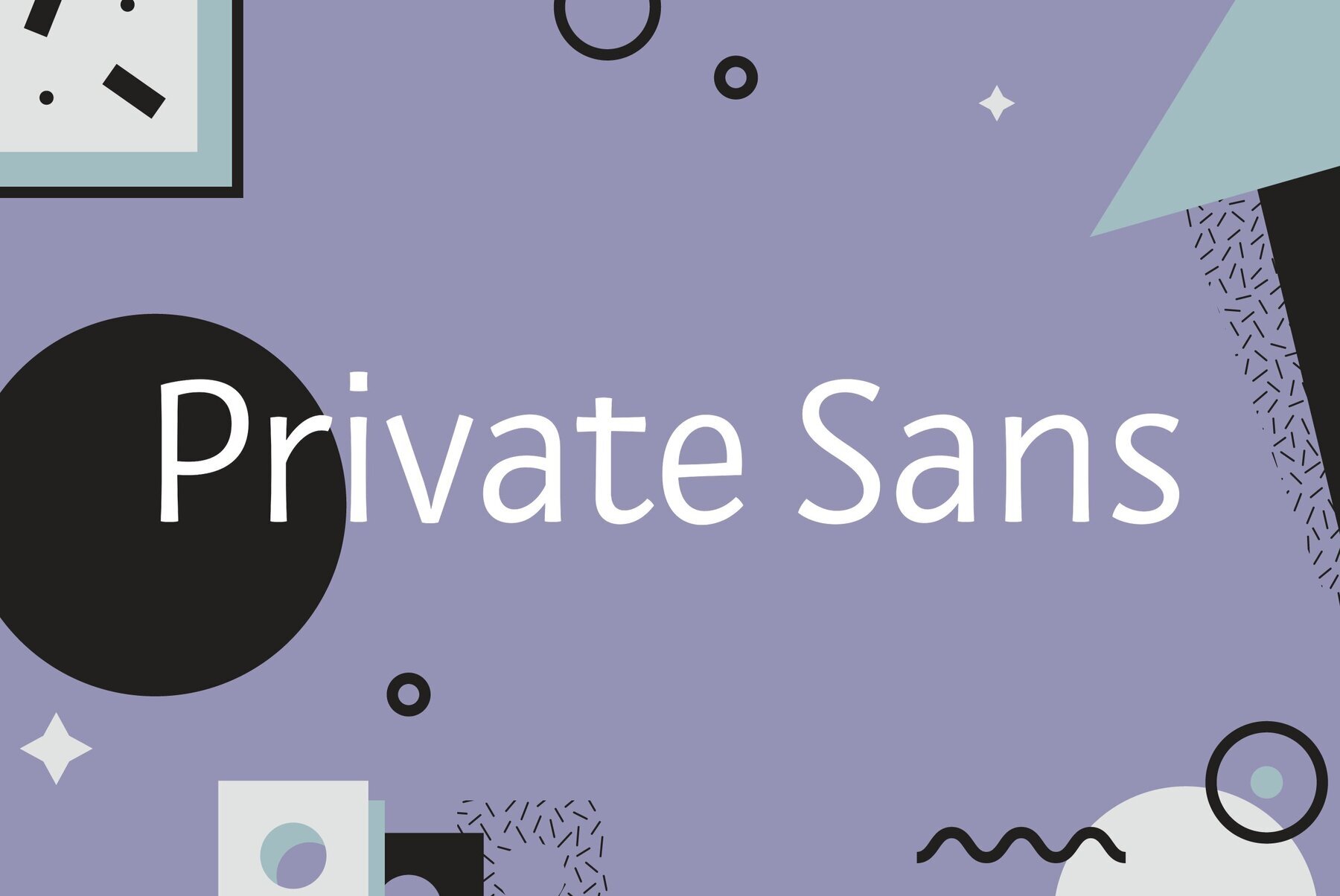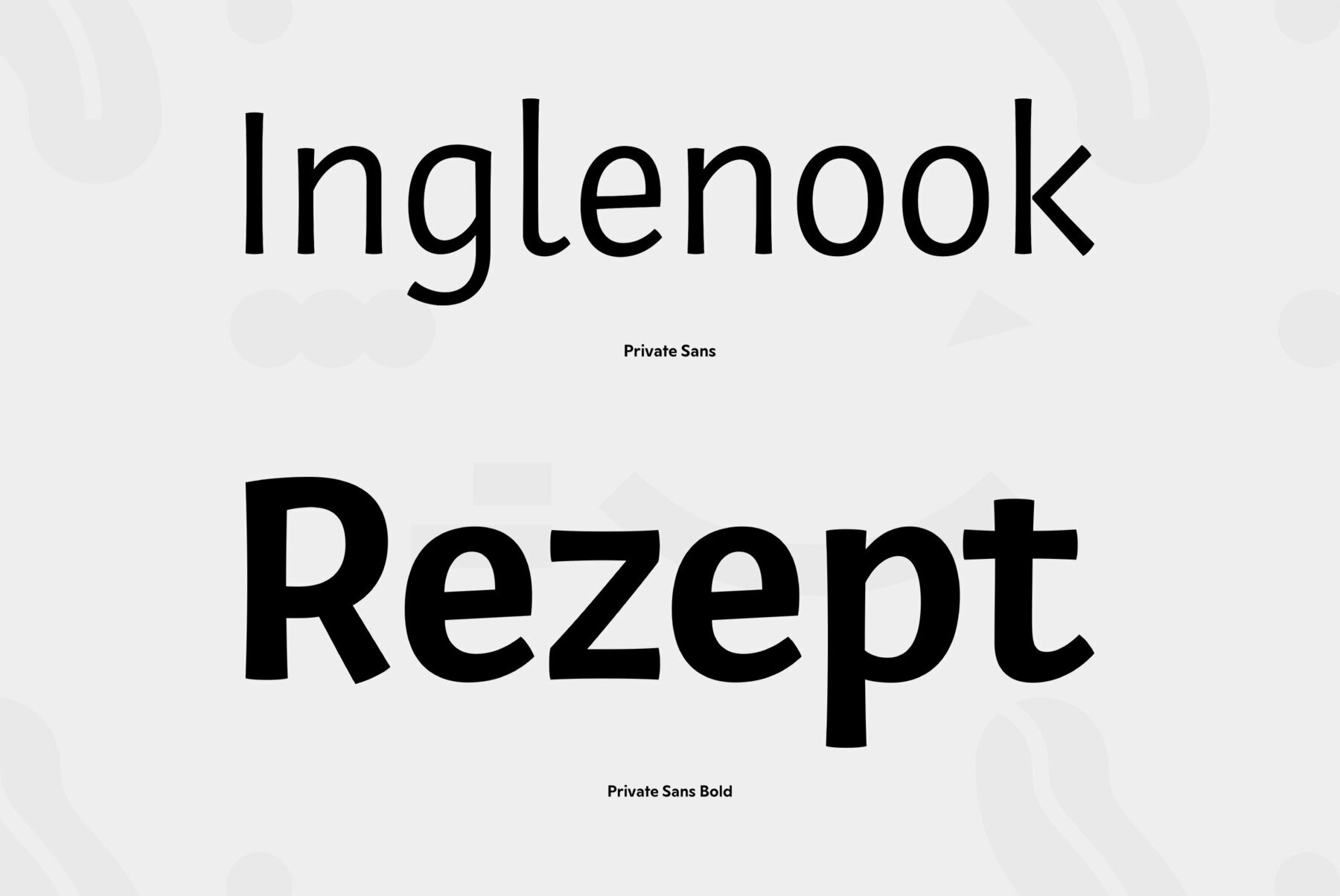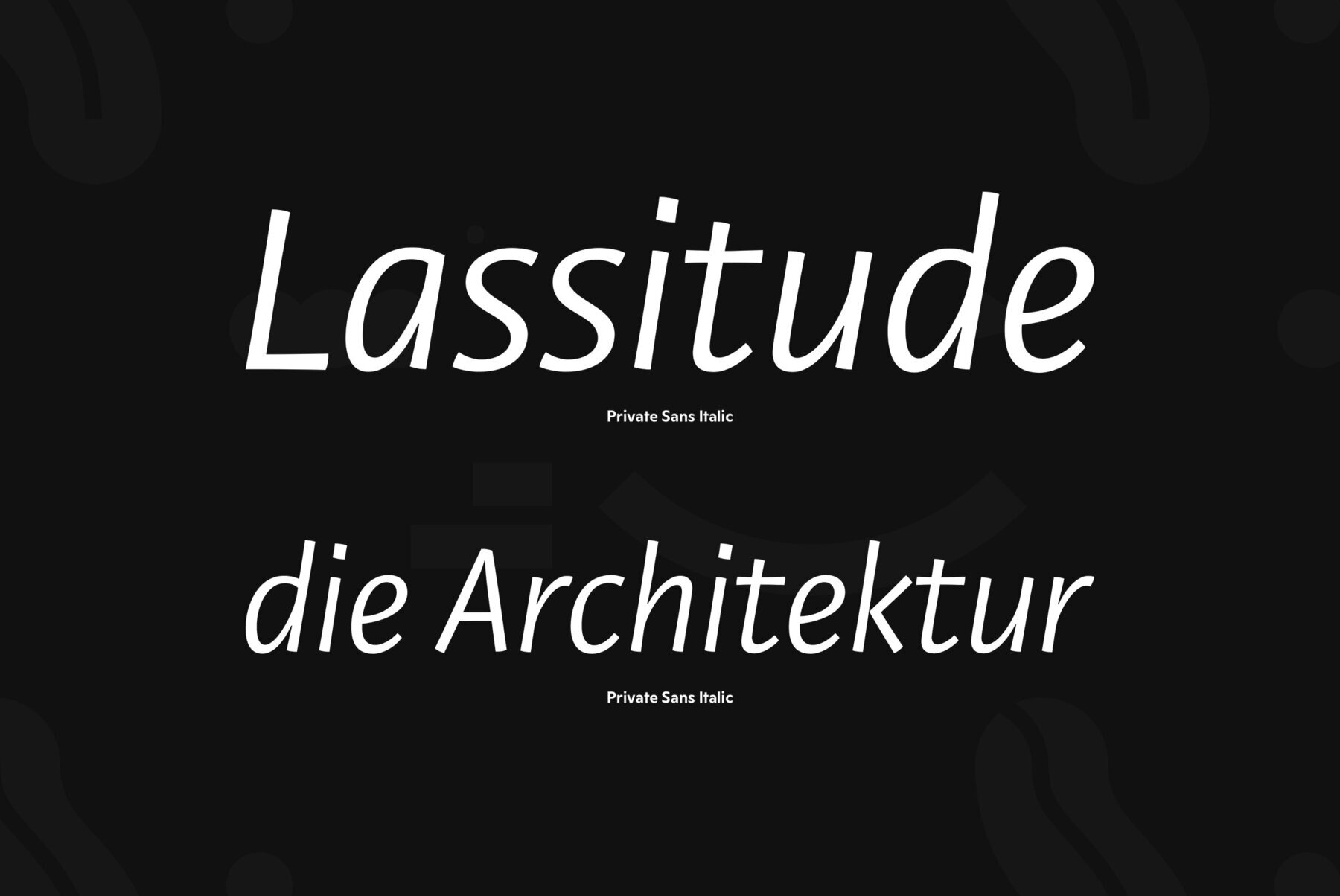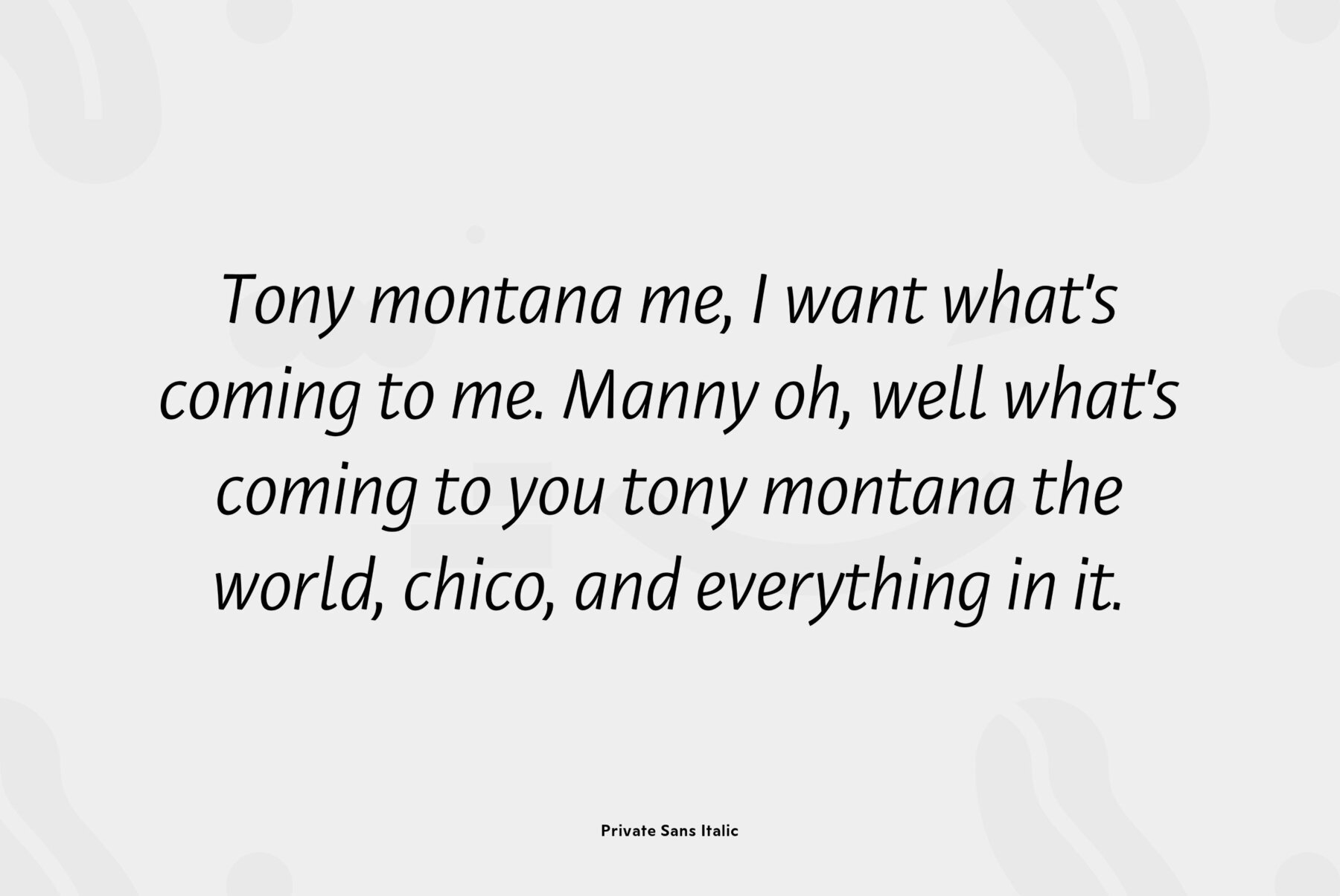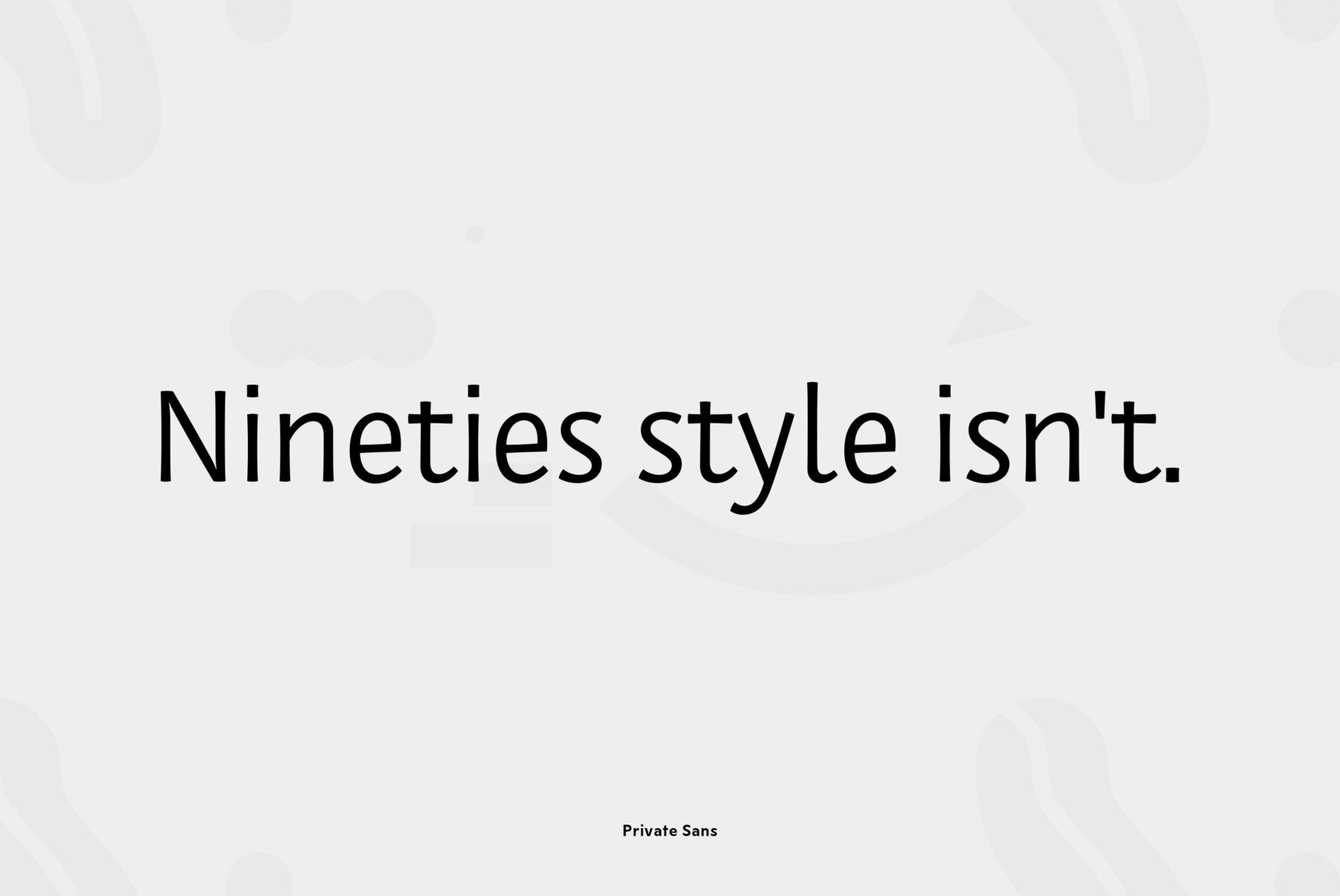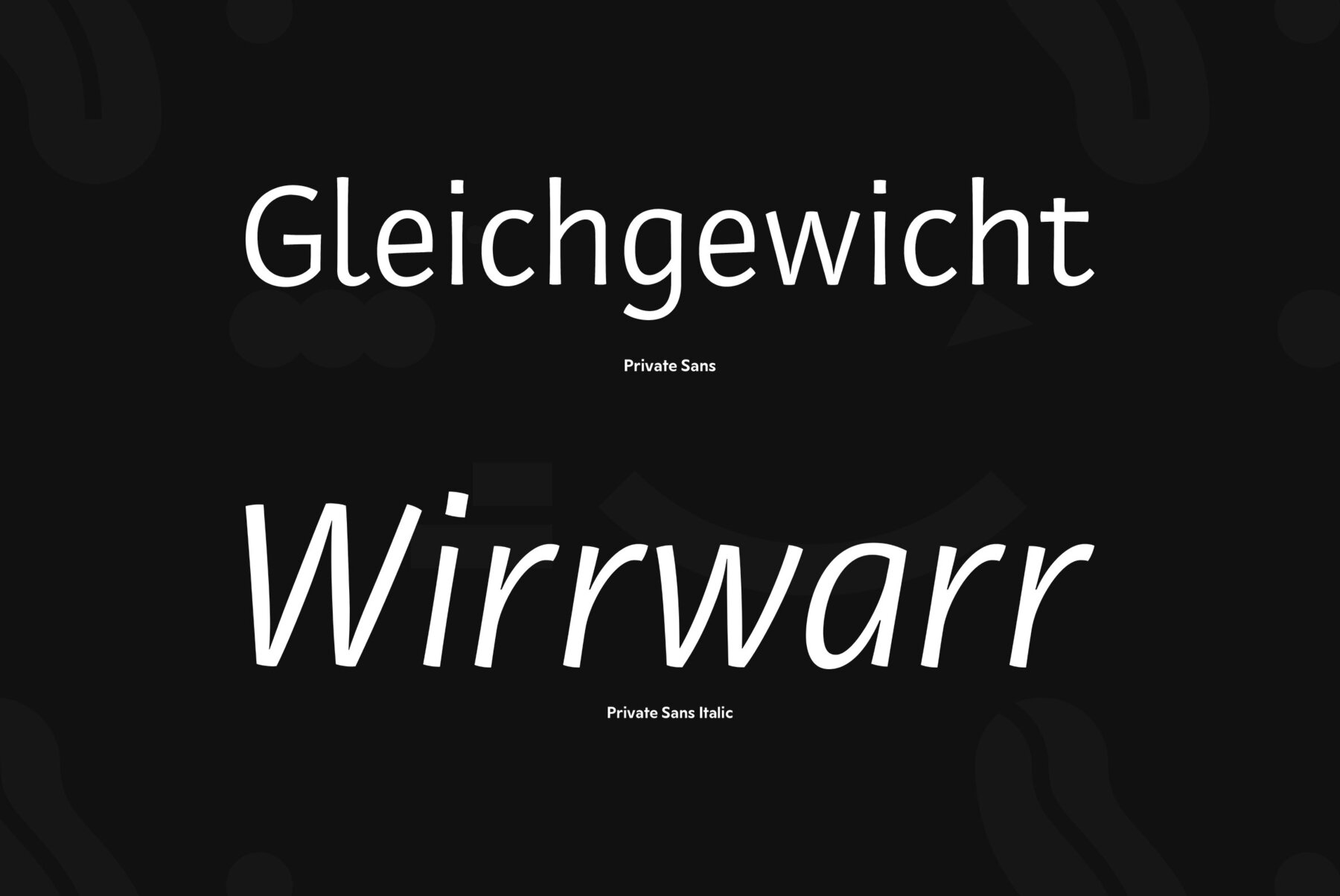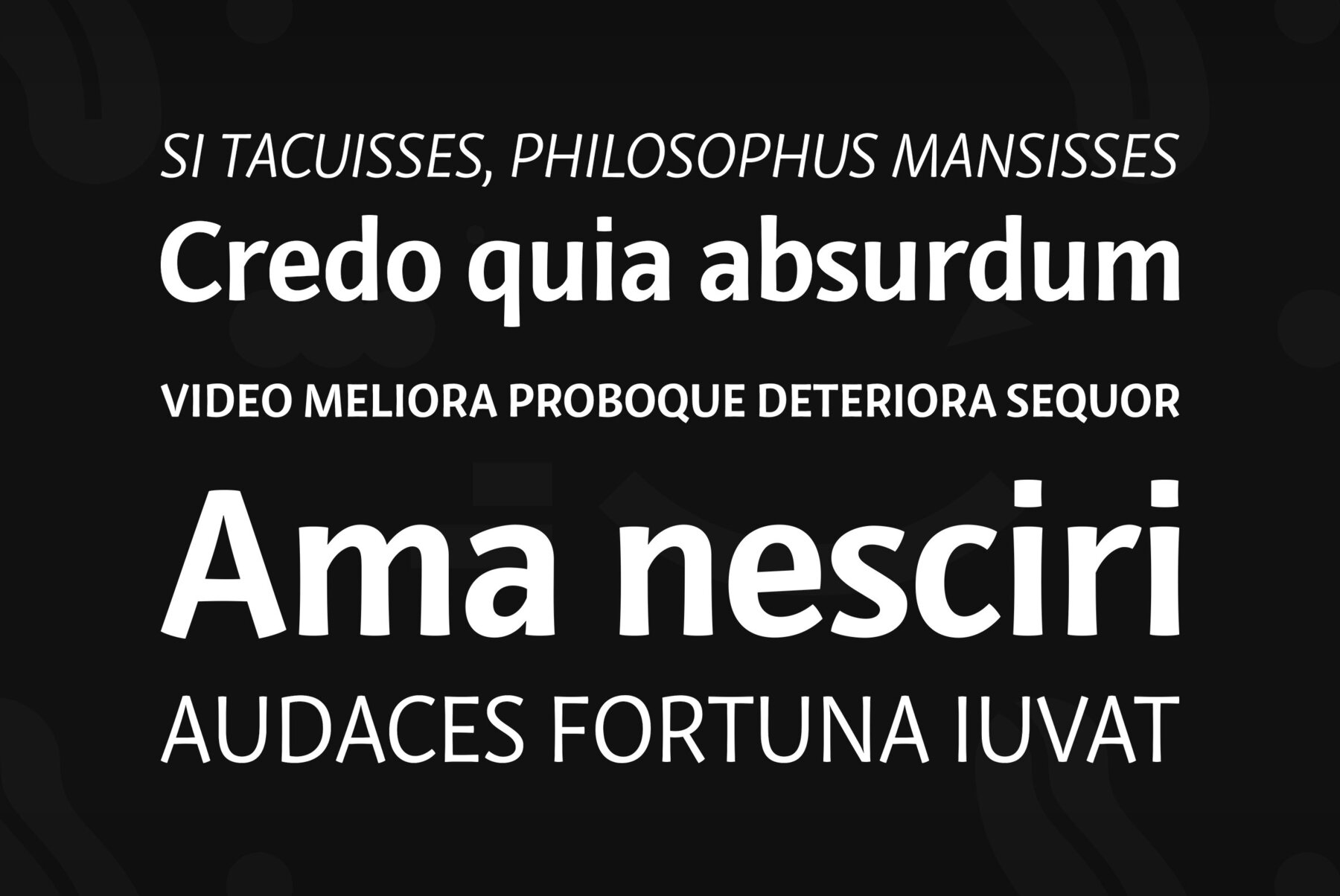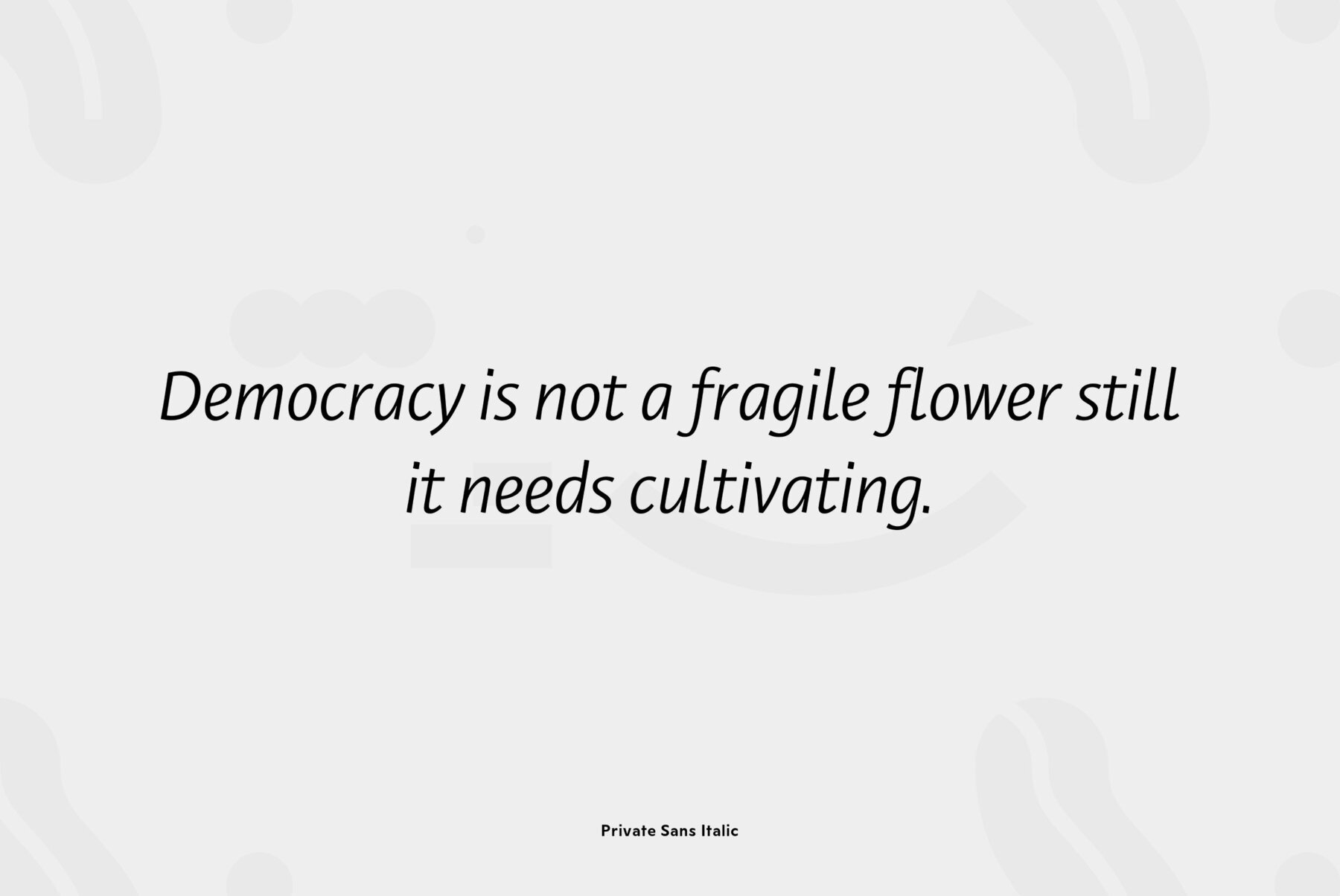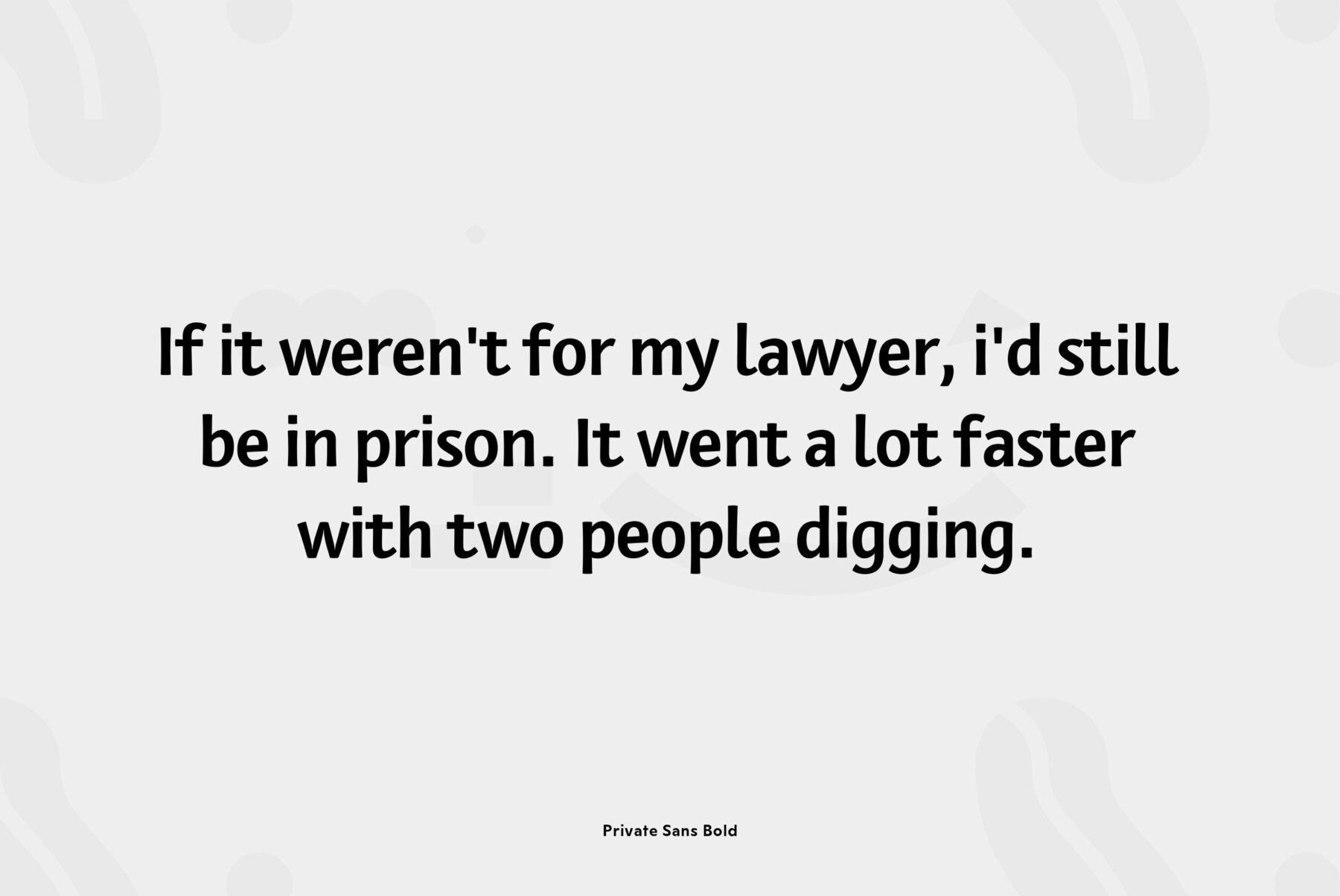
Private Sans
Private Sans is a three styles family of humanistic sans serif based on broad pen calligraphy. Its noticeable distinctions -- a vivid irregular nature which is not typical for usual Cyrillic text faces. Characters of the font have visible “inthasis”, soft terminals and slanted axis in internal ovals. The name of the font reflects an intention to design a typeface for personal messages. It can be used in blogs, e-mails, personal Web pages -- the places where author wants to show his personal attitude and invite visitors to enter his intimate space. It also usable for memoirs, autobiographies, interviews, and for those kind of literature that deals with feelings and emotional experience. The font family was designed by Olga Karpushina on the base of her graduate work of Type and Typography course in British Higher School of Art and Design. Released by ParaType in 2010.